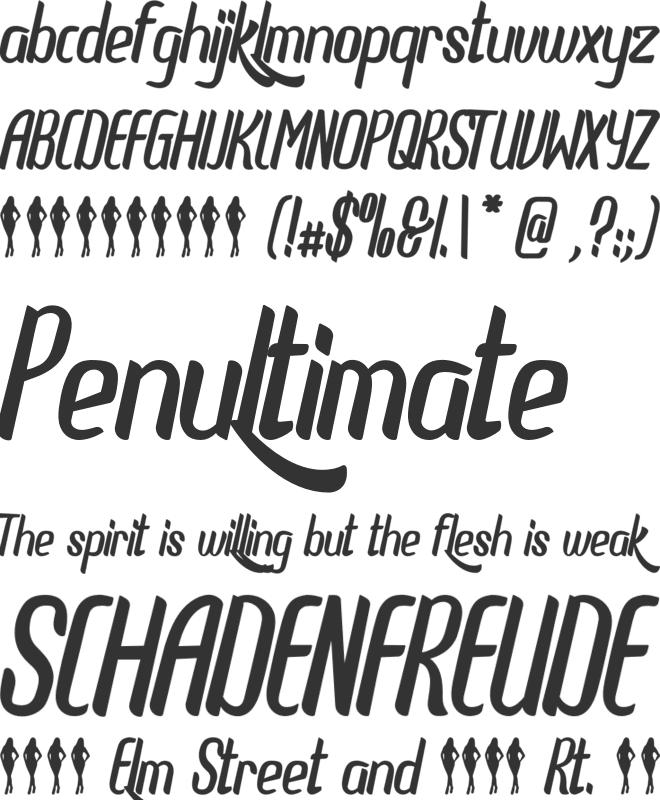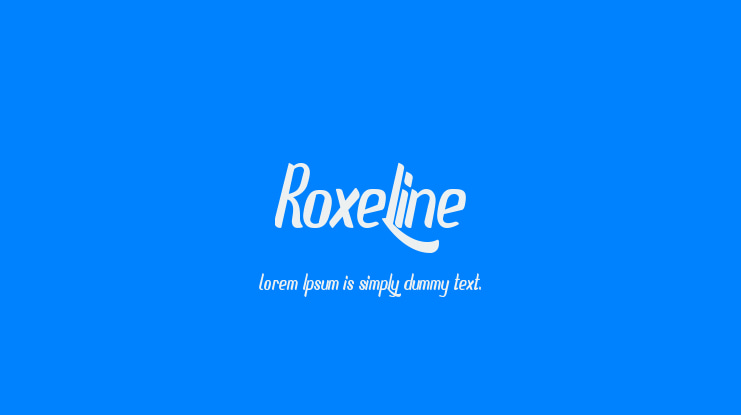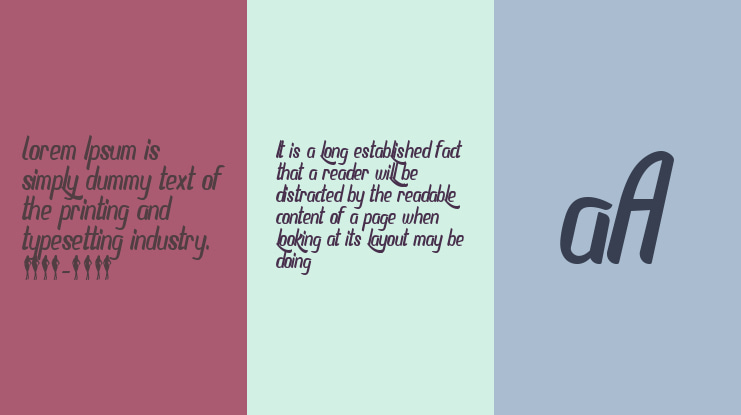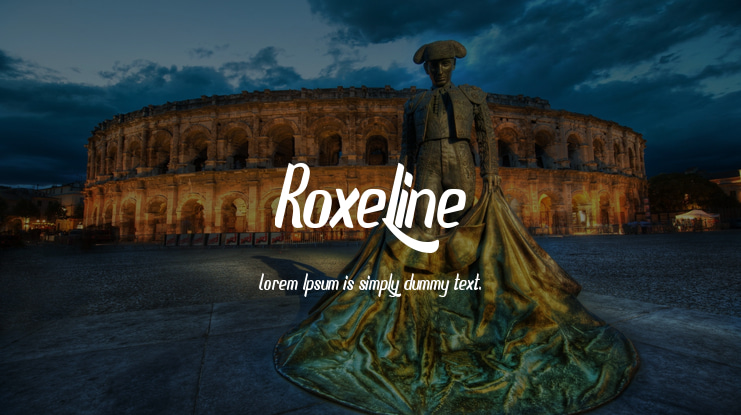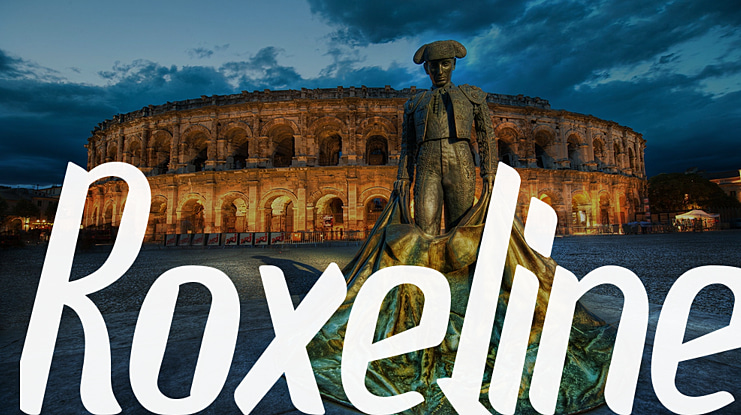
Roxeline Font
Roxeline feels equally charming and elegant. This handwritten font will elevate a wide range of design projects to the highest level, be it branding, headings, wedding designs, invitations, signatures, logos, labels, and much more!MORE INFORMATIONThis DEMO font is for PERSONAL USE ONLY!ENGLISH:By installing or using this font, you are agreeing to the Product Usage Agreement:1. This font is ONLY for PERSONAL USE. NO COMMERCIAL USE ALLOWED!2. You are requiring a license for PROMOTIONAL or COMMERCIAL use.3. CONTACT ME before any Promotional or Commercial Use!buy font here: https://www.creativefabrica.com/product/roxeline/Here is my paypal link:https://paypal.me/ghielzEMAIL SUPPORT:-------------------INDONESIA:Dengan meng-install font ini, anda dianggap mengerti dan menyetujui semua syarat dan ketentuan penggunaan font dibawah ini:1. Font ini hanya dapat digunakan untuk keperluan "Personal Use", atau untuk keperluan yang sifatnya tidak "komersil", alias tidak menghasilkan profit atau keuntungan dari hasil memanfaatkan/menggunakan font saya. Baik itu untuk individu, Agensi Desain Grafis, Percetakan, atau Perusahaan/Korporasi.2. DILARANG KERAS menggunakan atau memanfaatkan font ini untuk kepeluan Komersial, baik itu untuk Iklan, Promosi, TV, Film, Video, Motion Graphics, Youtube, atau untuk Kemasan Produk (baik Fisik ataupun Digital) atau Media apapun dengan tujuan menghasilkan profit/keuntungan. 3. Menggunakan font ini untuk kepentingan Komersial -apapun bentuknya-TANPA IZIN dari saya, akan dikenakan biaya EXTENDED LICENSE.Beli Font Disini : https://www.creativefabrica.com/product/roxeline/ini adalah link paypal saya:https://paypal.me/ghielzInformasi tentang Lisensi apa yang akan anda perlukan, silahkan menghubungi saya:Email: